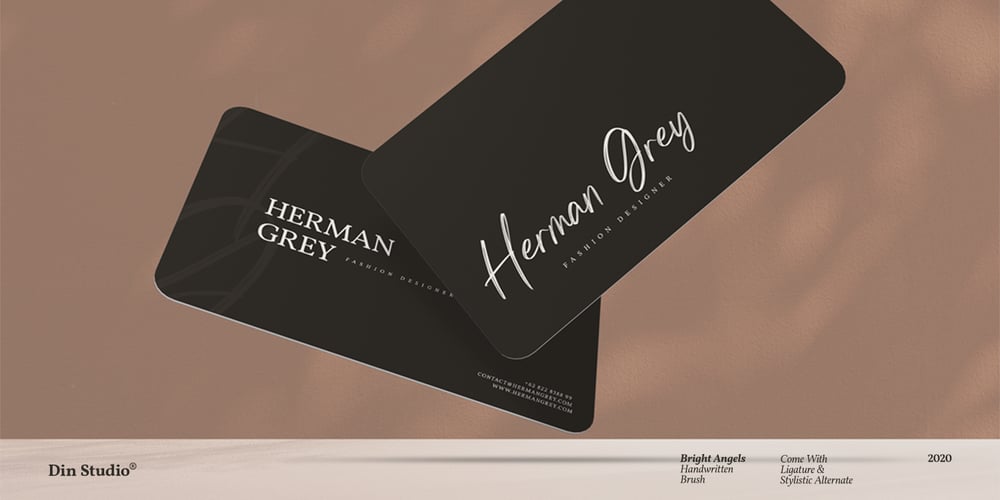
Bright Angels Font Family was designed by Donis Miftahudin and published by Din Studio. Bright Angels contains 1 styles and family package options. If you’re looking for a gorgeous, elegant, and versatile font to captivate your audience and create the perfect contrast between your headings and body copy, then we’ve got the font for you!Introducing Bright Angels – A Handwritten FontThis handcrafted typeface combined with brush style looks very elegant for loads of different projects and promotions. It is very suitable to be used on your website, for your social media branding, Pinterest banners, printed invitations, and more! Features: Beautiful Ligatures Alternates Stylistic Set Multilingual Support PUA Encoded Numerals and Punctuation Thank you for downloading premium fonts from Din Studio